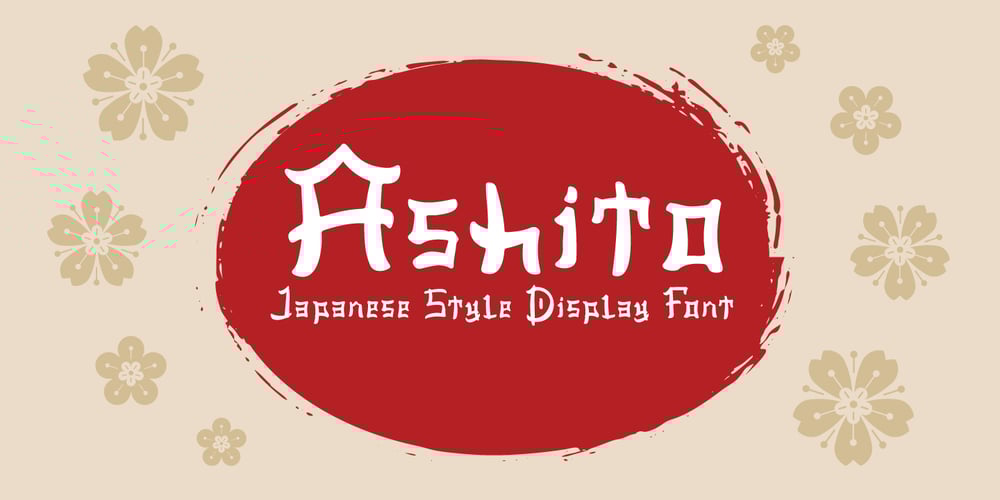
Ashito Japanese Font Family was designed by Fadli Ramadhan Iskandar and published by Attype Studio. Ashito Japanese contains 1 styles and family package options. Ashito is Font that inspired by Japanese Letter style, perfect for any Asian theme of design & promotion to create spectacular designs!Ashito is perfect for branding, logo, invitation, stationery, social media post, product packaging, merchandise, blog design, game titles, cute style design, Book/Cover Title and more.Hope you enjoy with our font!Attype Studio